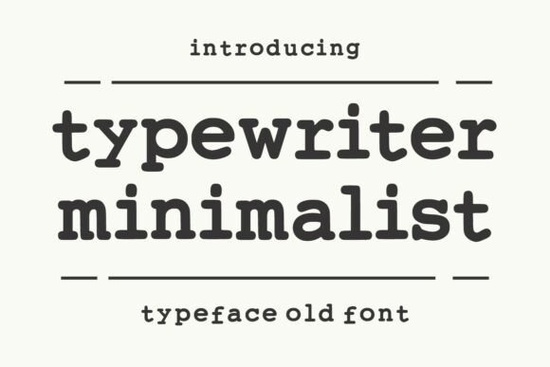
If you're looking for a font that brings the quiet charm of old-school typewriters into your modern designs, Typewriter Minimalist is a thoughtful choice. It’s not just another retro-style typeface it’s a well-balanced blend of vintage authenticity and clean functionality. Designed with monospaced letterforms and subtle imperfections that mimic real mechanical typing, this font works beautifully across print and digital projects.
What makes Typewriter Minimalist stand out?
Unlike many fonts that lean too hard into nostalgia or sacrifice readability, Typewriter Minimalist finds a sweet spot between character and clarity. The rounded terminals and consistent spacing give it a soft, handcrafted feel without losing legibility especially important when using it in long-form text like journals, book covers, or editorial layouts.
The design draws inspiration from classic office documents, handwritten manuscripts, and traditional publishing styles. You’ll notice details like slight variations in stroke weight and subtle spacing quirks that echo real typewriter output. These aren’t flaws they’re features that add warmth and personality to your work.
Where can you use this font?
It’s surprisingly versatile. Whether you’re creating stationery sets, packaging labels, social media graphics, or even branding for a small business with a vintage vibe, this font fits right in. Its minimalist look keeps things elegant, while the typewriter roots give each project a sense of history and authenticity.
- Book covers – Perfect for memoirs, poetry collections, or indie novels with a nostalgic tone.
- Invitations and cards – Adds a personal touch to wedding invites, birthday announcements, or thank-you notes.
- Print-on-demand products – Ideal for mugs, notebooks, T-shirts, and wall art with retro themes.
- Editorial layouts – Works well in zines, newsletters, or blog headers where a tactile feel enhances the message.
- Brand identity – Great for coffee shops, artisanal goods, or creative studios wanting a grounded, human-centered aesthetic.
How does it compare to other serif fonts?
While serif fonts like Sharp History, Richmond Grovelyn, and Milk and Honey bring elegance and tradition to the table, Typewriter Minimalist offers something different: a sense of movement and imperfection. It feels less formal, more personal like a letter written by hand on an old Underwood.
For those who love the structure of serifs but want a hint of vintage spontaneity, it’s a natural fit. If you’ve already explored fonts like Semika, you’ll appreciate how Typewriter Minimalist adds a new dimension to your toolkit one that leans into the charm of mechanical writing rather than ornate detailing.
Why designers and creators are choosing this font
One reason it’s popular among crafters and small businesses is its reliability. It performs well at small sizes, handles multiple languages, and scales smoothly from mobile screens to large posters. There’s no need to worry about kerning issues or awkward spacing this font is designed with real-world use in mind.
Plus, it pairs beautifully with simpler sans-serif fonts or clean line illustrations. Use it as a headline font with a modern body text, or let it shine alone in a centered layout. The minimalism ensures it never overpowers the rest of your design.
Whether you’re designing for fun or running a small creative business, Typewriter Minimalist delivers quiet confidence and genuine character.